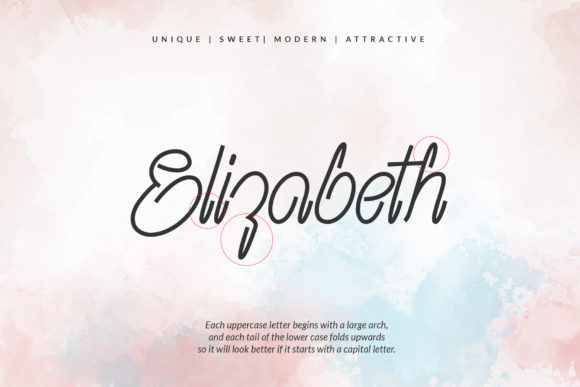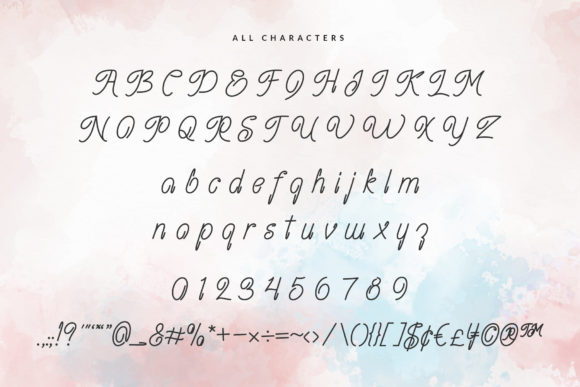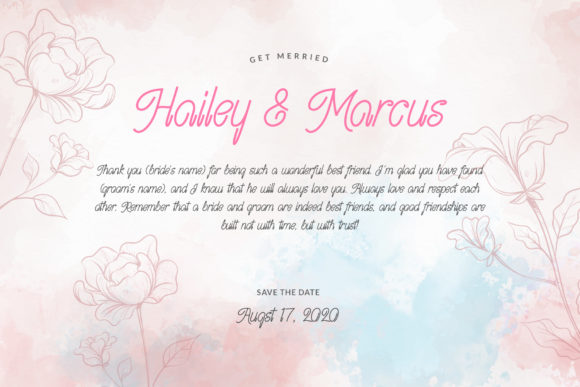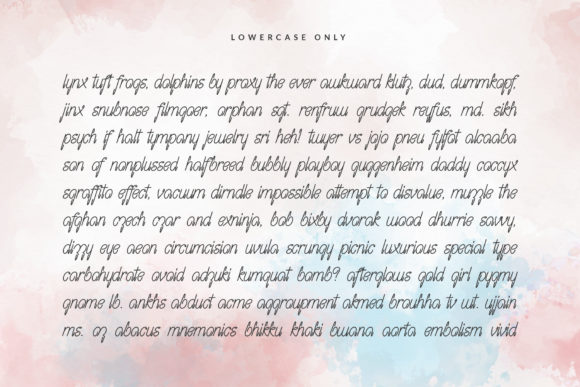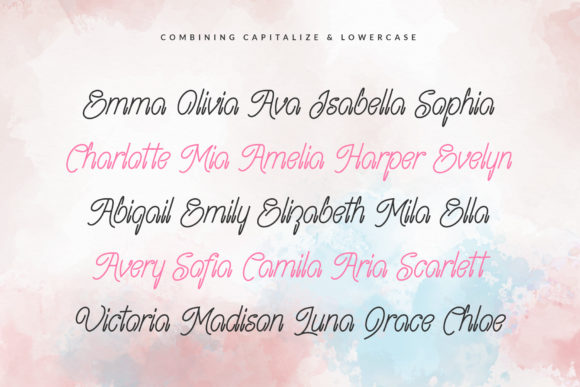
Virginia Font
About Virginia Font
Virginia is a delicate and unique handwritten font. Fall in love with its incredibly distinct and timeless style and use it to create spectacular designs!